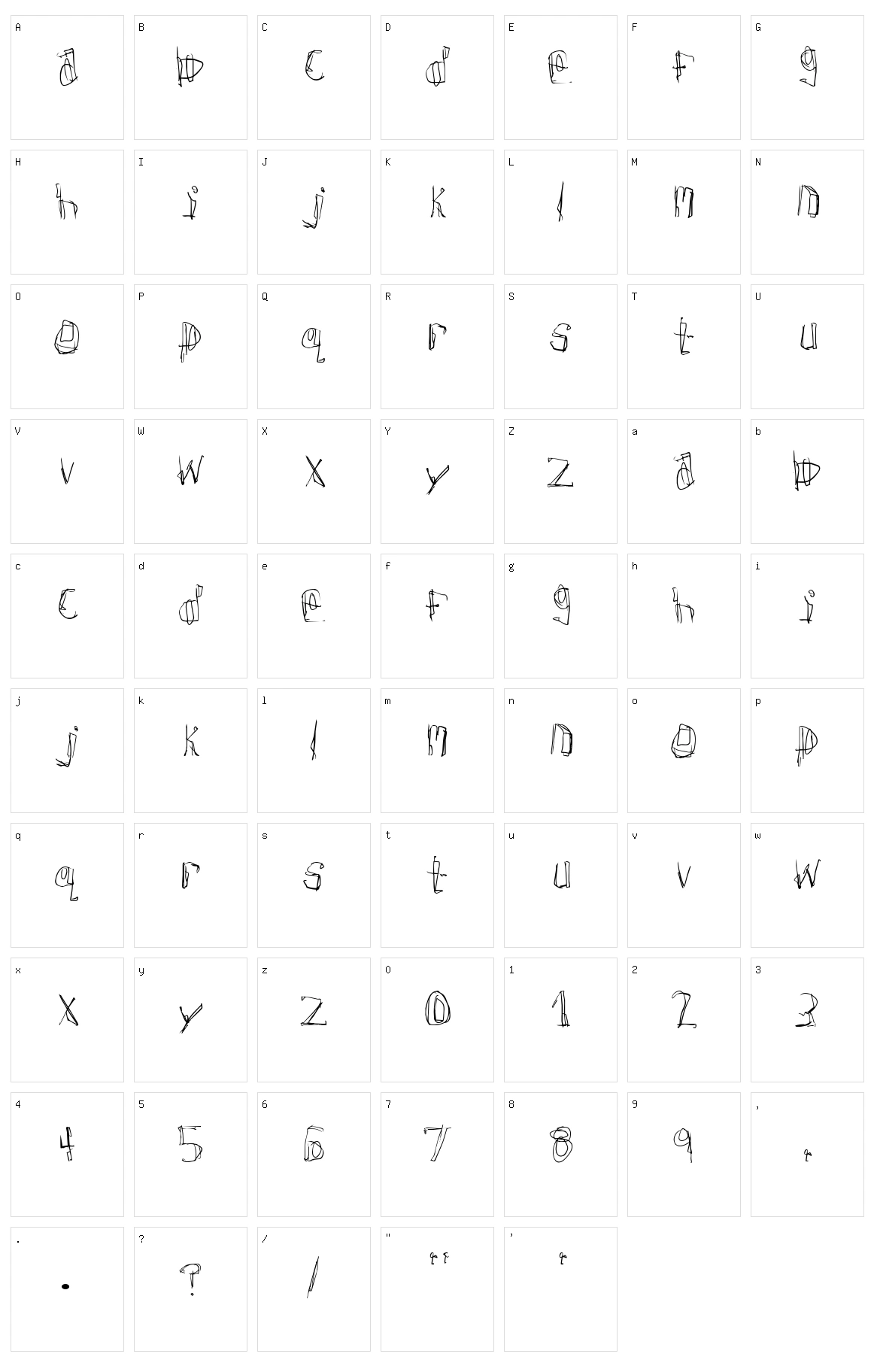
The free font Donner is carefully designed by Divide by Zero, showcasing a thoughtful balance of creativity and usability and falls under the Trash font style. When you download the ZIP file, it contains only 18.75 KB of font files, making it lightweight and quick to download. Please review the license details below to understand permitted usage and distribution rights. If license information is not available, we recommend using this font for personal projects only or contacting the author directly for commercial usage permissions.